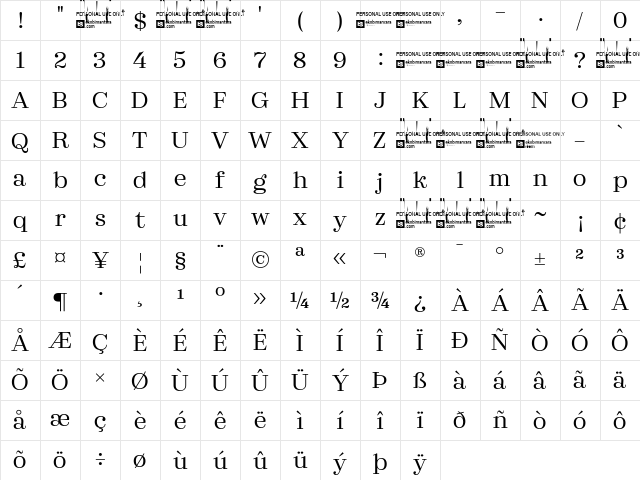
Marchise Trial Regular Free Font
Marchise Trial Regular
Designer: Eko Bimantara
Design Context for Marchise Trial
Marchise Trial is a composed and adaptable typeface that performs quietly and consistently across a wide range of design contexts.